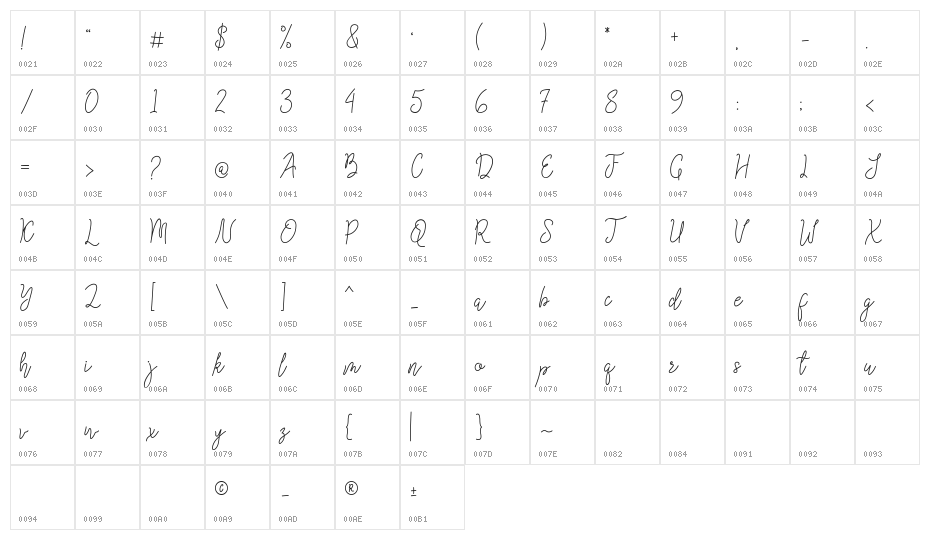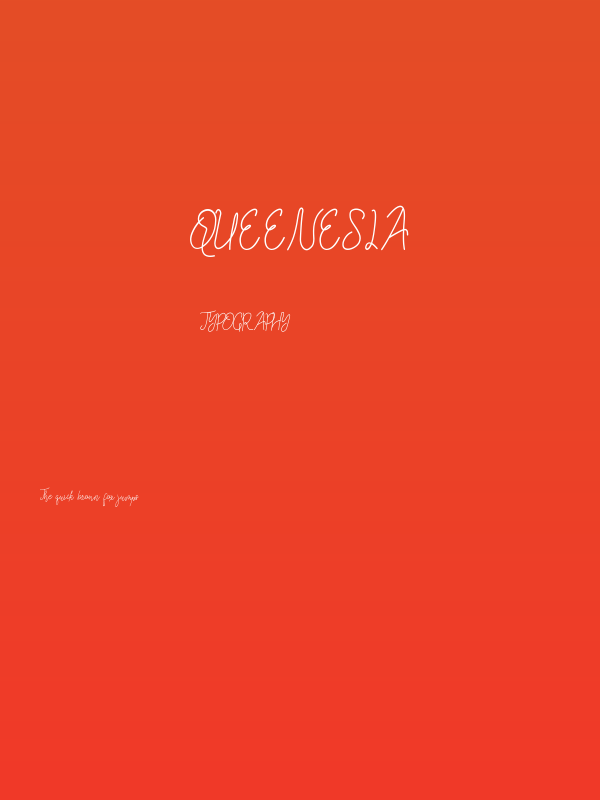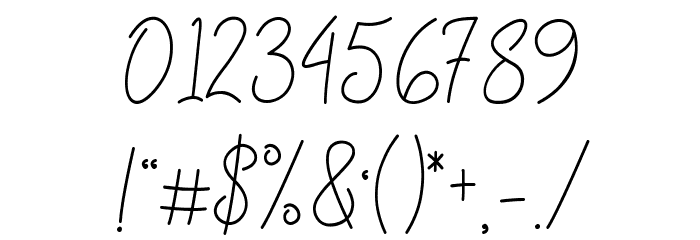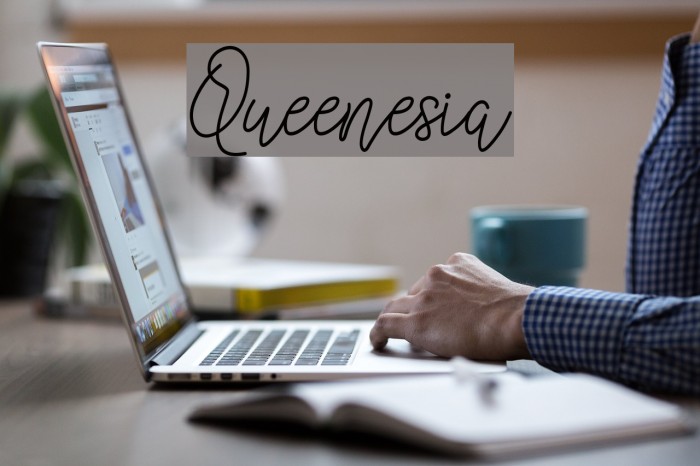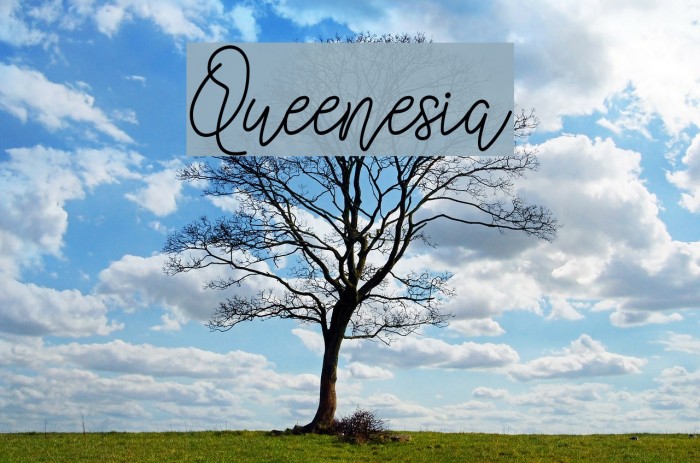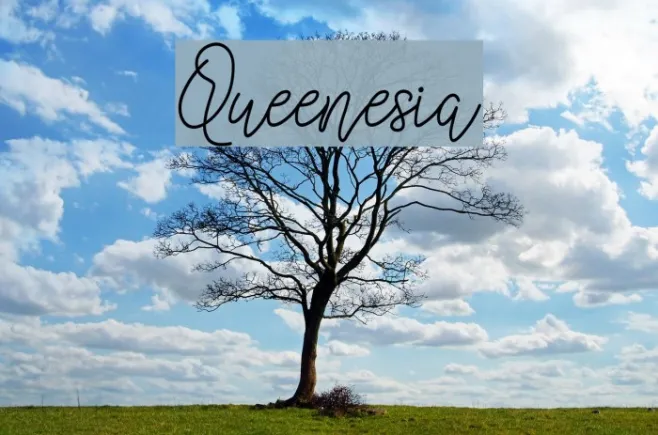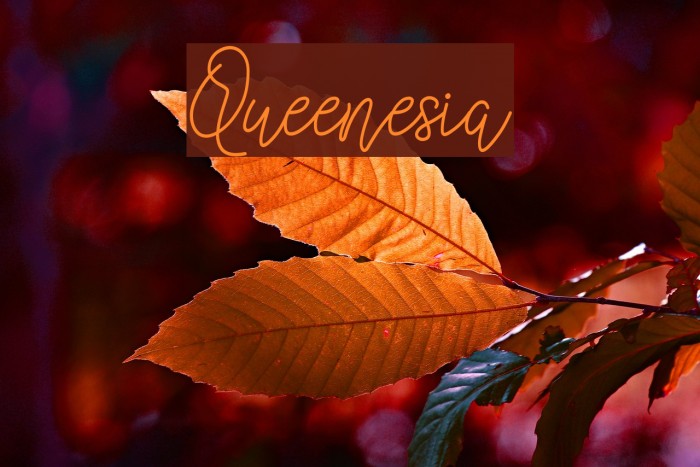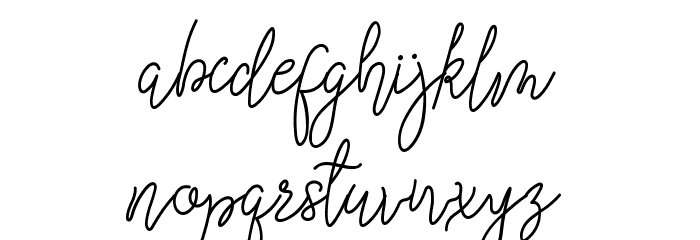
Queenesia Font
Queenesia Description
This elegant script font features a fluid, cursive style with smooth, flowing lines that give it a sophisticated and graceful appearance. The characters are connected, mimicking the natural flow of handwriting, which adds a personal touch to any design. The uppercase letters are slightly more ornate, with subtle flourishes that enhance their visual appeal. The lowercase letters maintain a consistent style, ensuring readability while retaining the font's overall charm. The numerals and special characters are designed to match the script's aesthetic, making them suitable for a variety of uses. This font is perfect for projects that require a touch of elegance and sophistication.
| Proposed Projects | Ideal for wedding invitations, greeting cards, branding, and elegant packaging designs. |